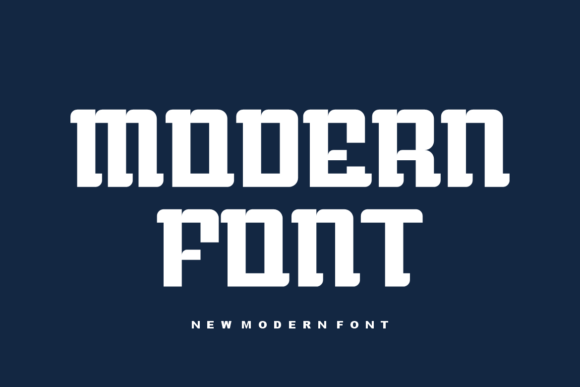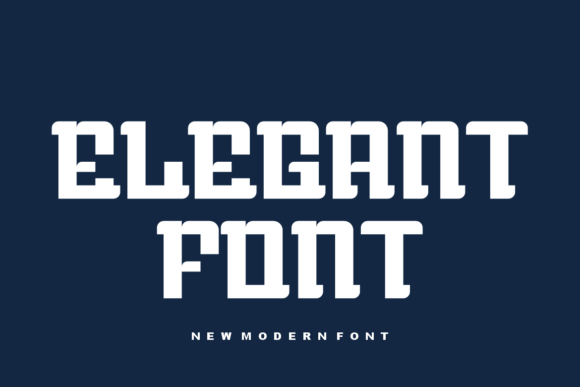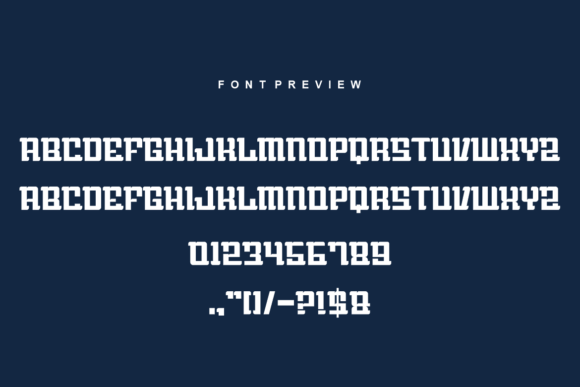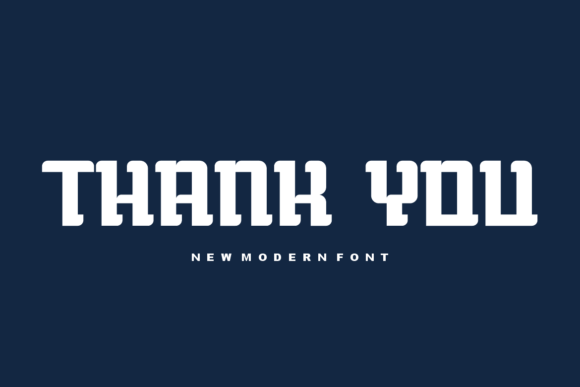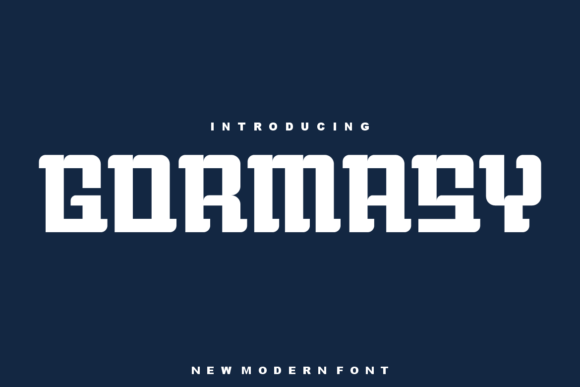
Gormasy Font: Elevate Your Designs with a Bold, Modern Serif
In the world of typography, fonts play a crucial role in conveying messages, expressing emotions, and creating a lasting impression. For designers and crafters, finding the right font can be a daunting task, especially when it comes to creating striking headlines and designs. This is where Gormasy Font comes into play – a bold, modern serif font that is taking the design world by storm.
What is Gormasy Font?
Gormasy is a bold, modern serif font that boasts clean lines and strong, stylish characters. Its unique blend of classic and contemporary elements makes it perfect for designers looking to add a touch of sophistication and elegance to their work. Whether you’re creating a logo, brochure, or website, Gormasy Font is sure to make a striking impression.
Key Features of Gormasy Font
- Bold and Modern: Gormasy Font is designed to make a statement. Its bold and modern design ensures that your headlines and designs stand out from the crowd.
- Clean Lines: The font features clean lines and minimal ornamentation, giving it a sleek and sophisticated look.
- Strong and Stylish Characters: Each character in Gormasy Font is carefully crafted to exude strength and style, making it perfect for creating eye-catching designs.
- Serif Elegance: The serif elements of Gormasy Font add a touch of elegance and refinement, making it suitable for a wide range of design applications.
Why Choose Gormasy Font?
So, why should you choose Gormasy Font for your design projects? Here are just a few reasons:
- Versatility: Gormasy Font is incredibly versatile and can be used in a variety of design applications, from print to digital.
- Legibility: The font is highly legible, even at small sizes, making it perfect for body text and captions.
- Uniqueness: Gormasy Font is a unique and distinctive font that will help your designs stand out from the crowd.
- Ease of Use: The font is easy to use and can be easily integrated into your design workflow.
How to Use Gormasy Font in Your Designs
Using Gormasy Font in your designs is easy. Here are a few tips to get you started:
- Headlines: Use Gormasy Font to create bold and eye-catching headlines that grab attention.
- Logos: The font is perfect for creating logos that require a strong and stylish presence.
- Brochures and Flyers: Use Gormasy Font to add a touch of sophistication and elegance to your print materials.
- Websites: The font is highly legible on digital screens, making it perfect for website headers and titles.
Tips for Pairing Gormasy Font with Other Fonts
Pairing Gormasy Font with other fonts can create a unique and visually appealing design. Here are a few tips:
- Contrast: Pair Gormasy Font with a sans-serif font to create contrast and add visual interest.
- Harmony: Use a similar font family to create harmony and cohesion in your design.
- Hierarchy: Use different font sizes and weights to create a clear hierarchy of information.
In conclusion, Gormasy Font is a bold, modern serif font that is perfect for designers and crafters looking to add a touch of sophistication and elegance to their work. Its clean lines, strong characters, and serif elegance make it a versatile font that can be used in a wide range of design applications. Whether you’re creating headlines, logos, or print materials, Gormasy Font is sure to make a striking impression.